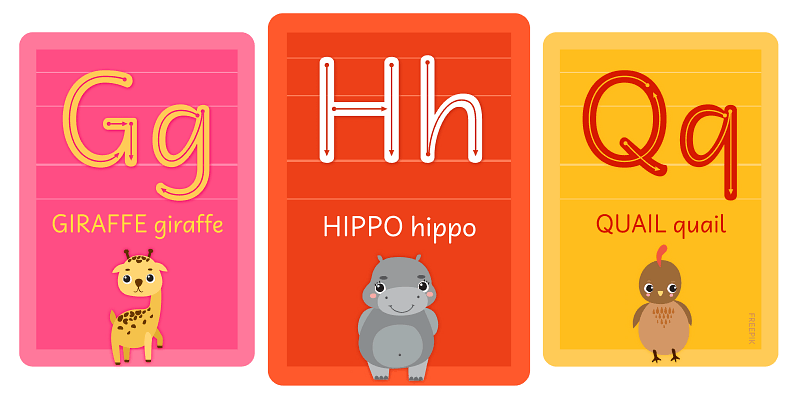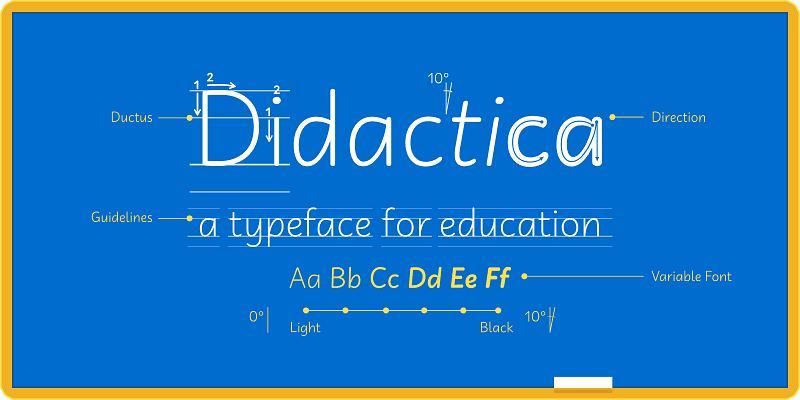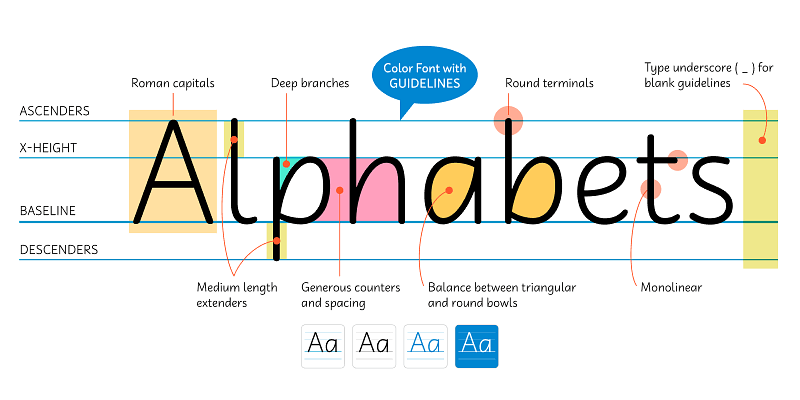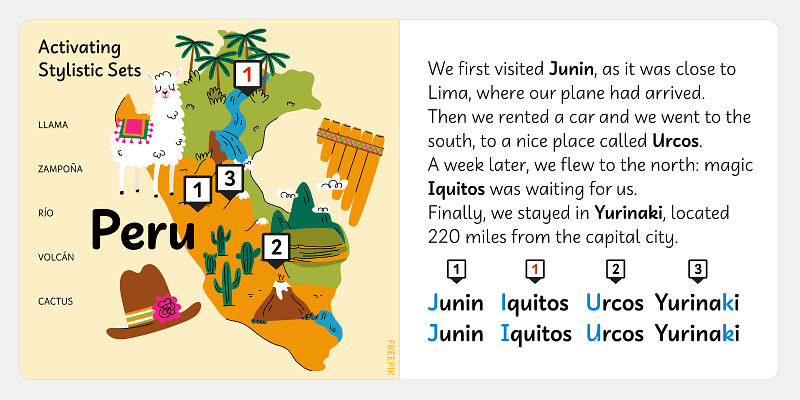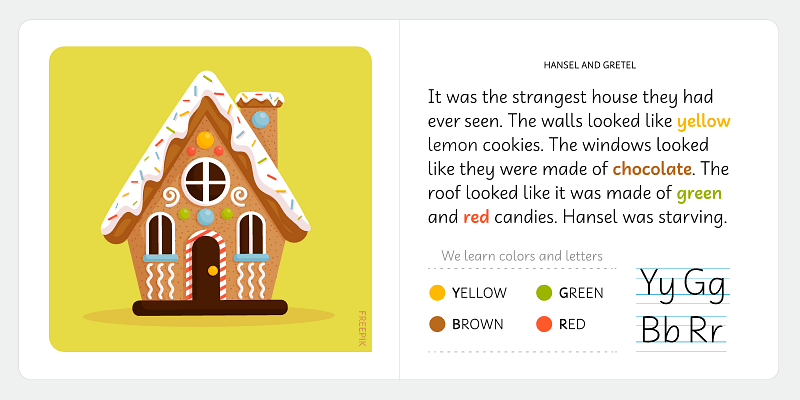
“Didactica is a handwriting font family inspired by the lessons of Tom Gourdie. The idea was to create something familiar to kids and easy to read. It also features various styles for educational purposes, such as Direction, Ductus, and Guidelines—easily used as a handwriting instruction tool for children in their early years of schooling. Didactica is a friendly script perfect for books, toys, magazines, packaging, and educational materials.